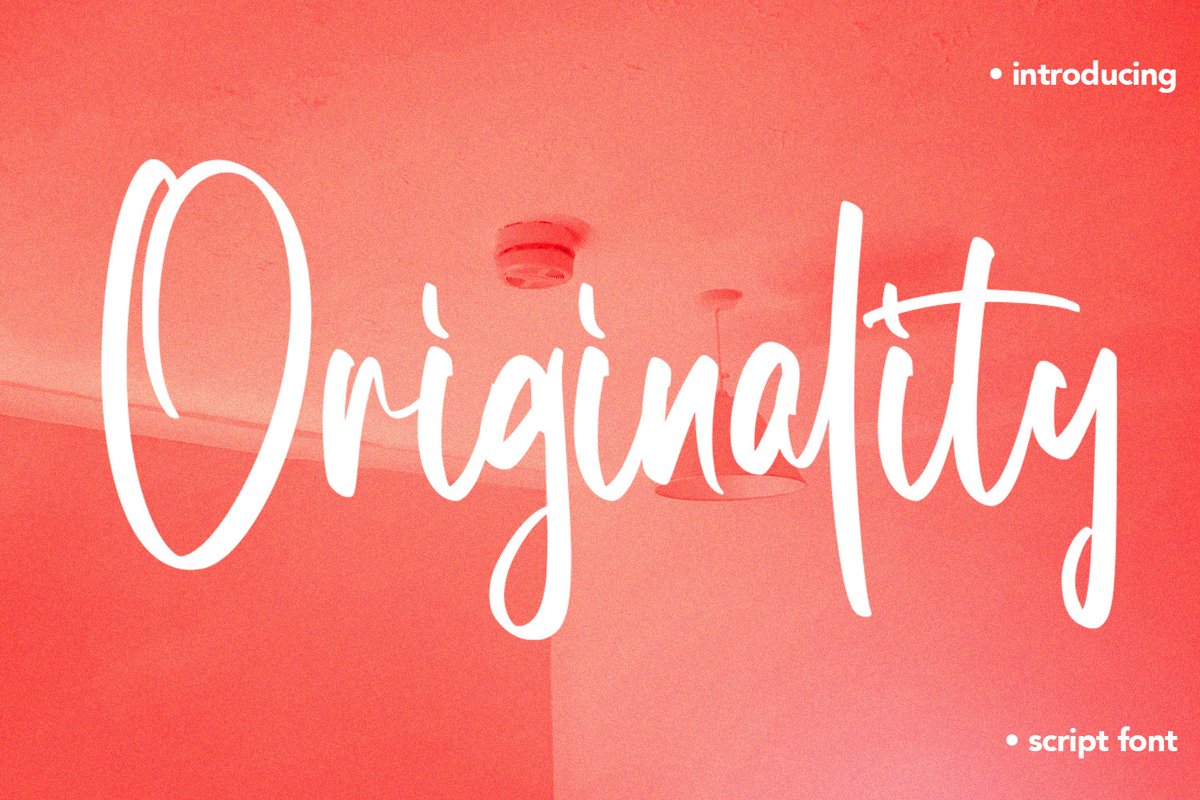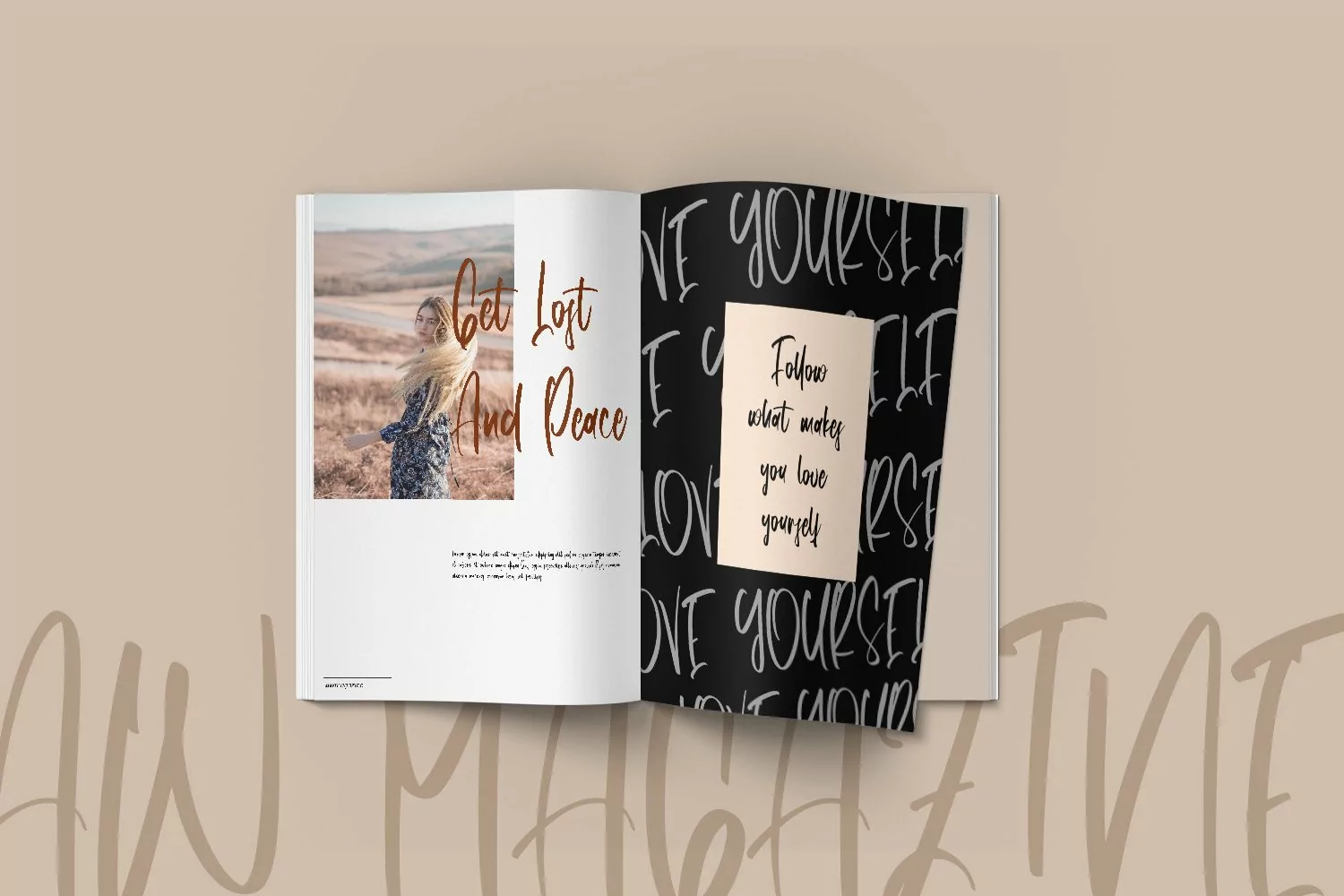
Originality - Script Font that contain lowercase, uppercase, symbol, and also support multi language. There’s a lot ligatures in this font. This Font also comes with ligatures, alternates and many more. this font suitable for fashion, branding, catalog and other design what you want.